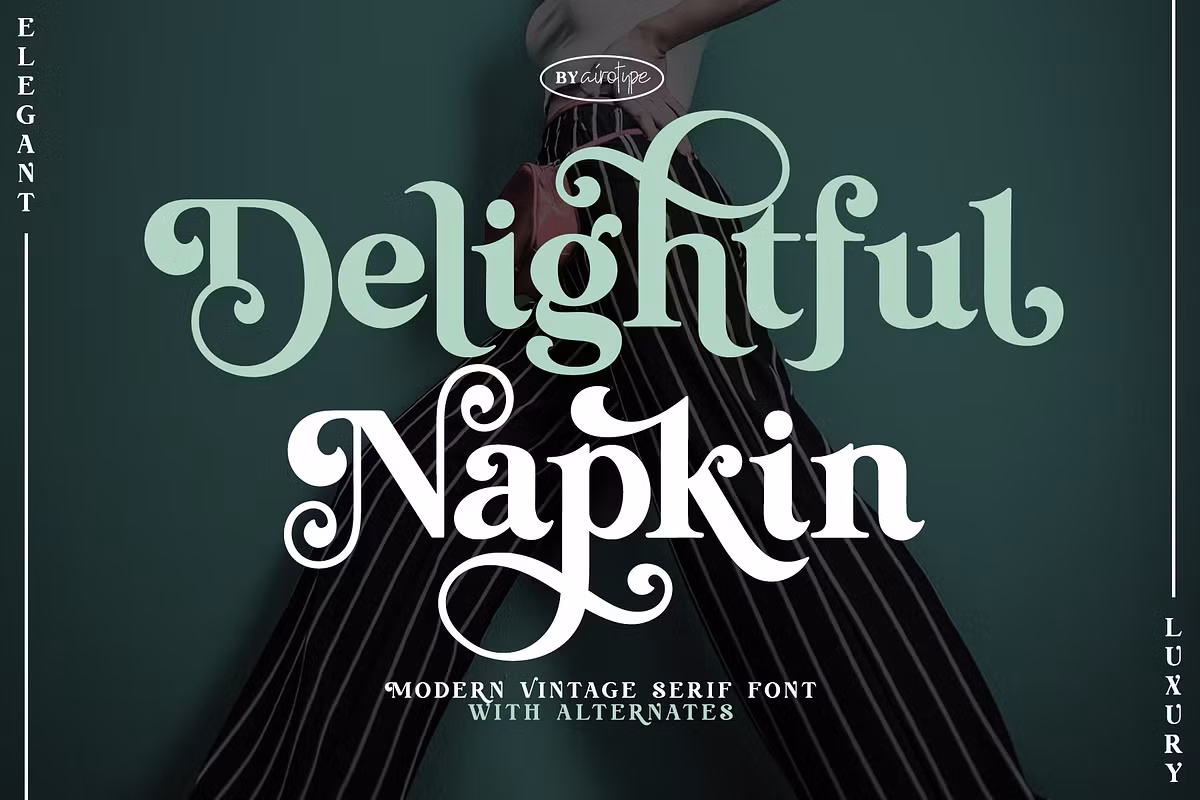
Delightful Napkin Modern Serif Font Free Download
Delightful Napkin Modern Serif Font Free Download is a charming and elegant serif typeface with a soft, contemporary twist. Featuring graceful curves, high-contrast strokes, and refined details, this font is perfect for wedding invitations, boutique branding, editorial layouts, lifestyle blogs, and packaging that calls for a touch of sophistication with a playful edge.
Crafted to blend timeless beauty with modern sensibility, Delightful Napkin Modern Serif Font Free Download includes stylish ligatures and alternates, giving your designs a distinctive and custom feel. Its clean structure also ensures excellent readability across both print and digital formats.